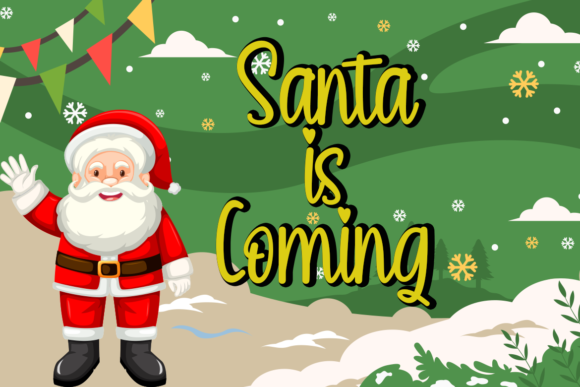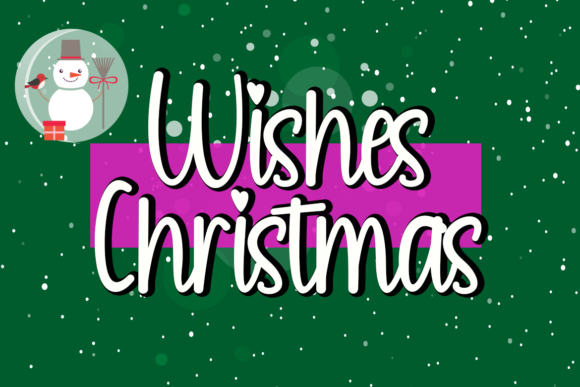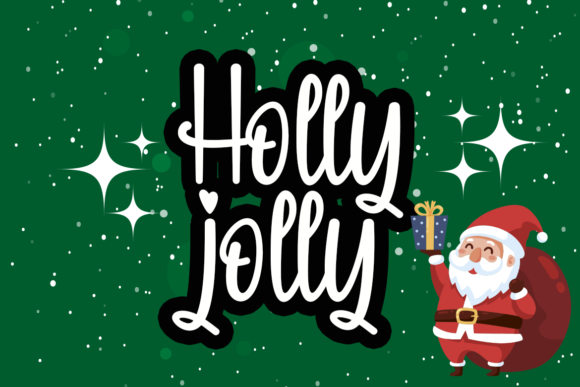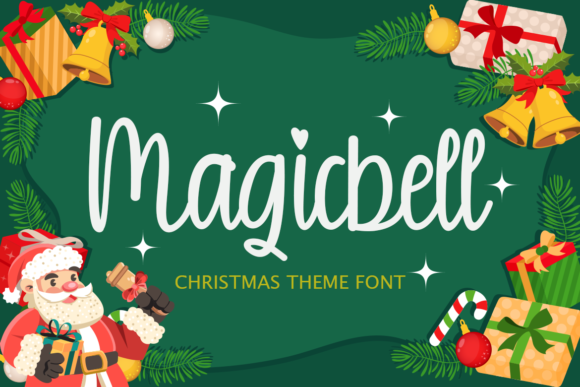
Introduction to Magicbell Font
Magicbell is a beautiful and refined script font.
It has a classy, elegant, and modern look that can be used for logos, branding, invitations, stationery, wedding designs, social media posts, and much more .
Key Features of Magicbell Font
Why Choose Magicbell Font?